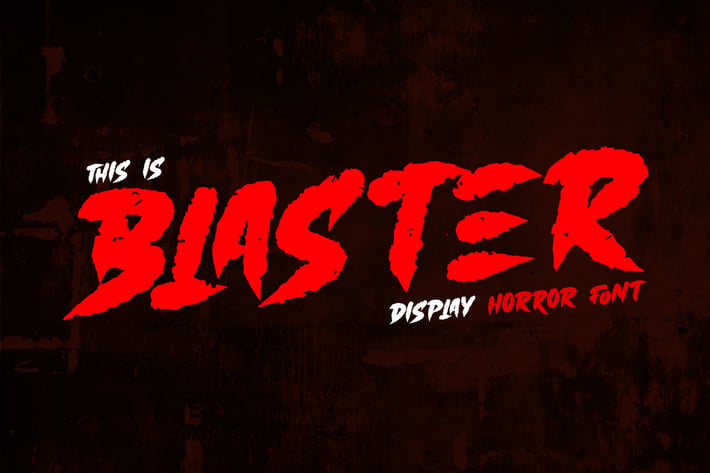
Blaster - Display horror font
Blaster has a strong, aggressive look with sharp lines and curves. This font has hard corners and is slightly tilted towards the vertical, giving it a sharp and intimidating impression. accompanied by additional ligatures and alternates that you can adjust yourself. Can be applied as film poster designs, book covers, quotes, etc.
- Alternates & Ligatures